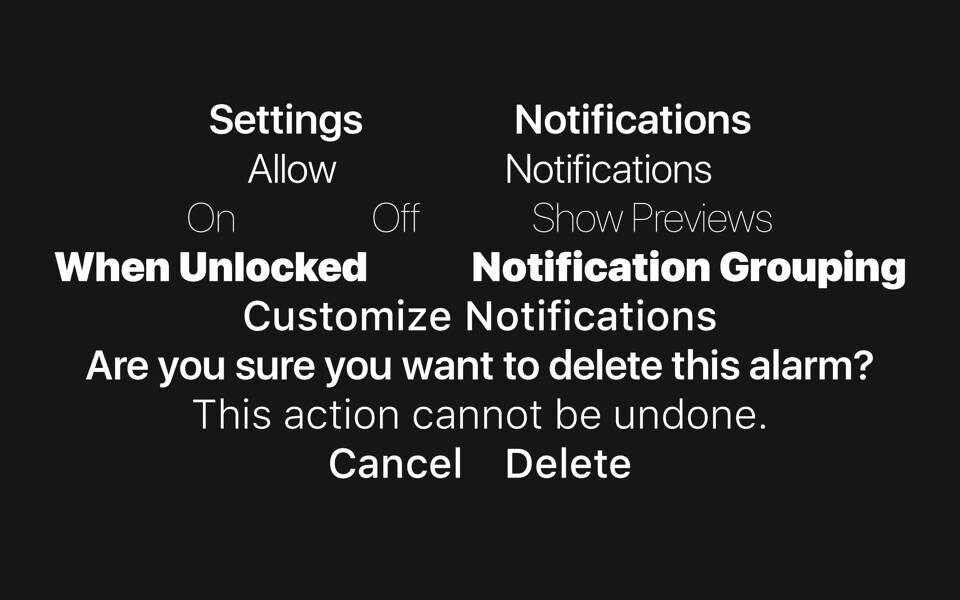
San Francisco Font
San Francisco (SF) is an Apple designed typeface that provides a consistent, legible, and friendly typographic voice. Across all Apple products, the size-specific outlines and dynamic tracking ensure optimal legibility at every point size and screen resolution. Numbers have proportional widths by default, so they feel harmonious and naturally spaced within the time and data-centric interfaces people use every day.
Nine weights, including italics — and features like small caps, fractions, inferior and superior numerals, indices, arrows, and more — offer breadth and depth for precision typesetting. San Francisco also adapts intelligently to different contexts.
• SF Pro: Apple’s modern system font designed for clarity and versatility across interfaces. Adapts automatically to different sizes for consistent readability and aesthetic across all Apple platforms.
• SF Pro Text: Optimized for small text sizes, with larger x-height and increased spacing to enhance legibility in body text, labels, and compact UI elements.
• SF Pro Display: Tailored for large text sizes, featuring tighter spacing and refined shapes. Ideal for headlines, titles, and visually striking interface elements.